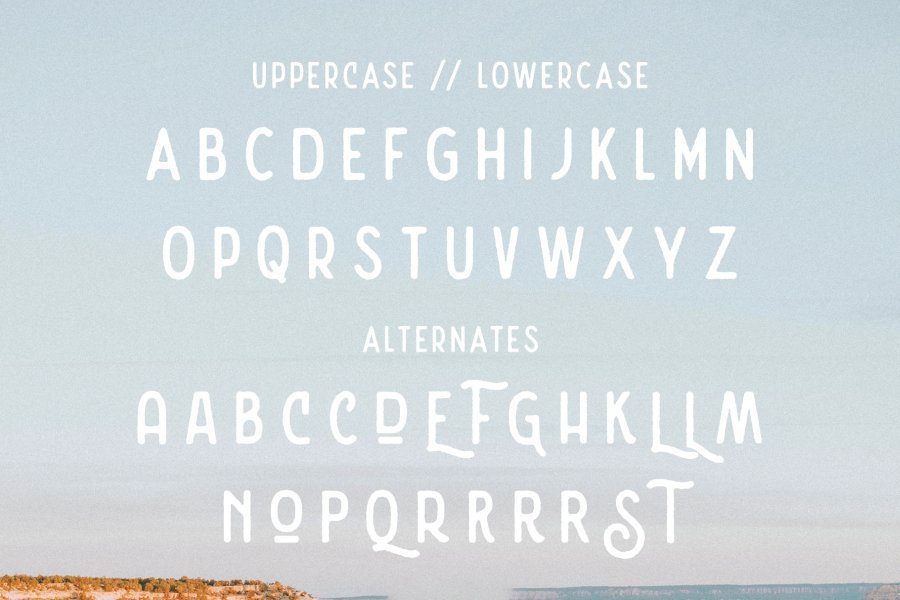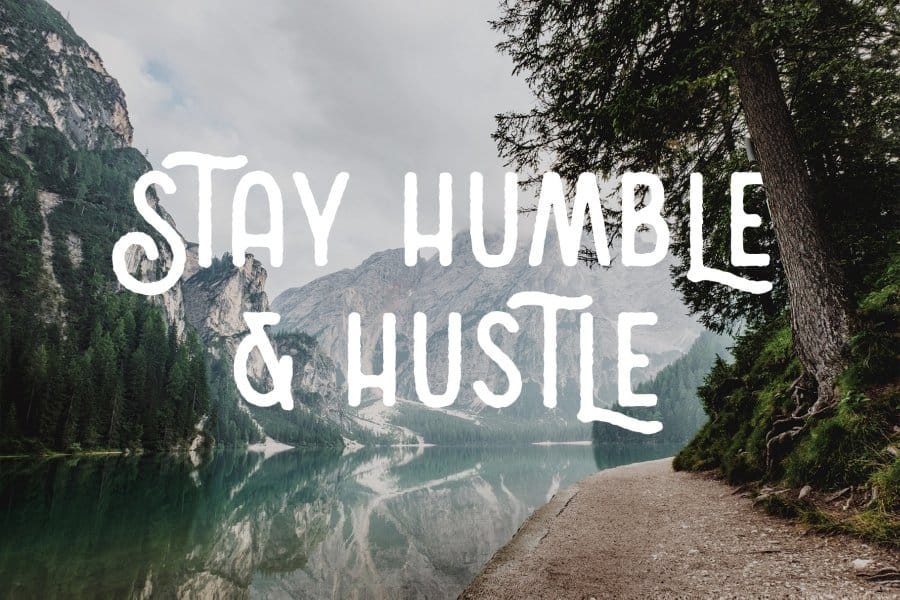
Nature Spirit Font
Nature Spirit Font falls into the category of the display fonts. This is a stylistic typeface and it is similar to nature sans font and it is for free. This is one of the fantastic-searching fonts available on the proper now. Difficult, formidable and in reality strong, this retro-style layout is not uncommon in format.
It’s an extended manner the outstanding font for papers, nunito font is cool typography designed as a present-day and large shape of figures that cover easy. Nature Spirit Font Free Its ink traps secure clean commonplace look even on low-extremely good papers. As a prevent to give up the surrender save you forestall result, its dimensions are searching for to help the state of affairs in top and width, therefore makes grand traditional fonts. Each, in fact, one in each of a type the lessen font the cutting-edge-day las vegas font, the circle of families.
It has to become produced as a person or a lady’s duty inspired via the beneficial useful resource of the use of a top-notch format. Download It‚Äôs miles one of the wonderful format fonts for titles, headings, and notices. Because of the truth, its dimensions have the cause of developing vicinity in top and width. In addition, an attractive and lively model can use go along with the go together with the flow to decrease over again as a utm avo font.
The font like organization facebook font consists of the ligatures, ordinals. In aggregate, his direct and rounded strains visible the mind of classical form – vertical mountaineering pilasters, semi-round arch, a horizontal cornice.